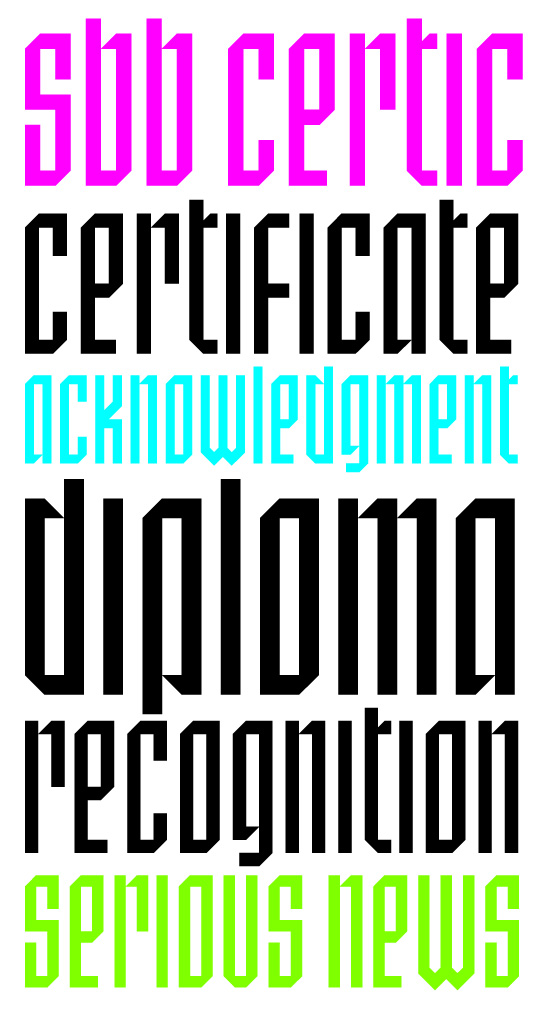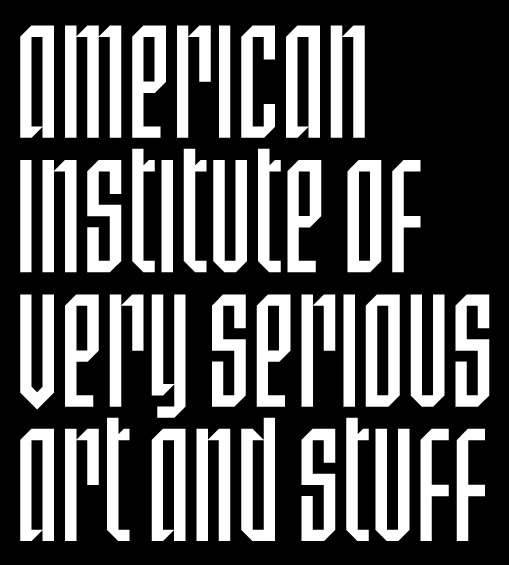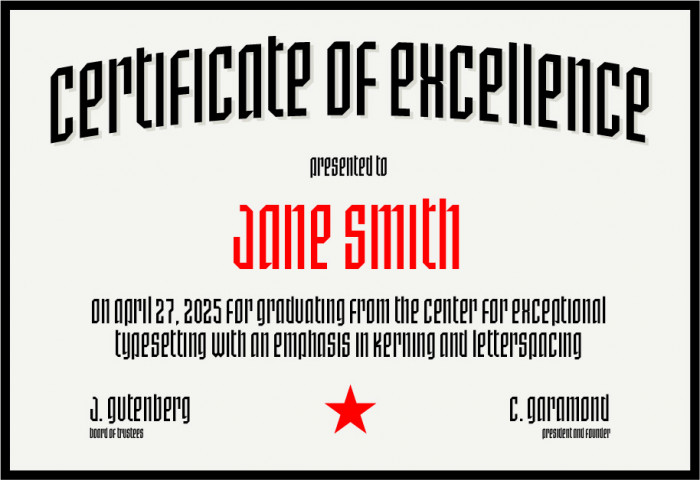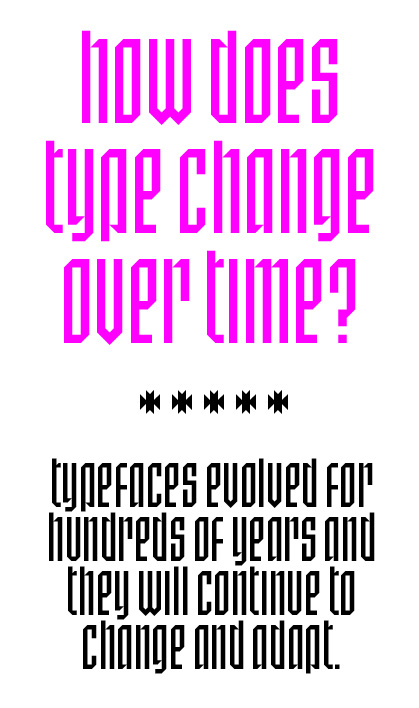
A blackletter-inspired unicase design. I'm thinking this will look good on certificates, diplomas and all sorts of official documents where readability is secondary. I've got some spacing adjustments to make in the punctuation.
Blackletter-inspired.
Nice font; funny samples.